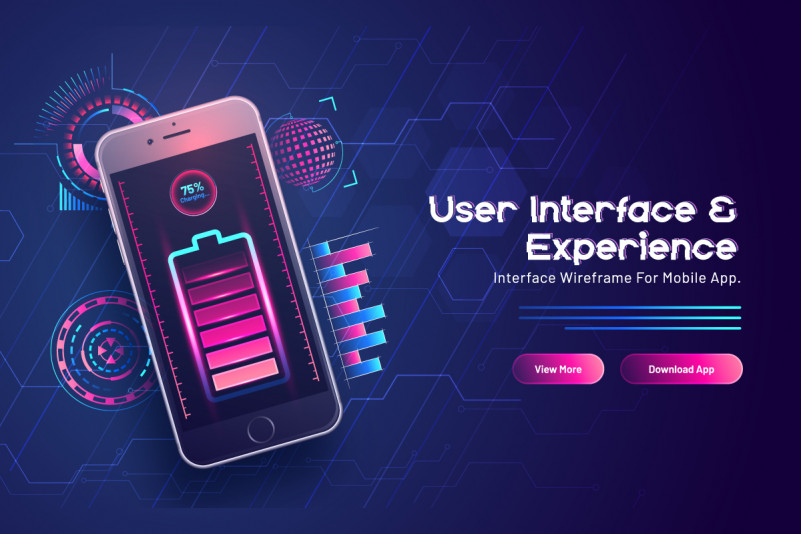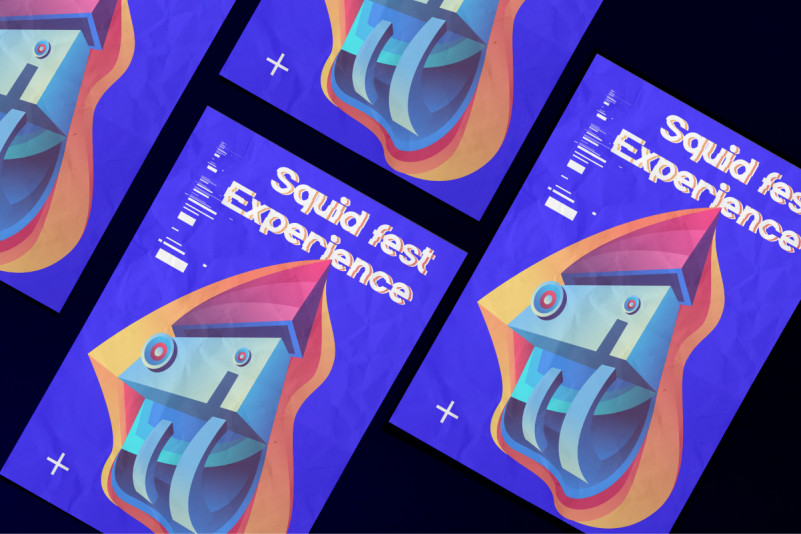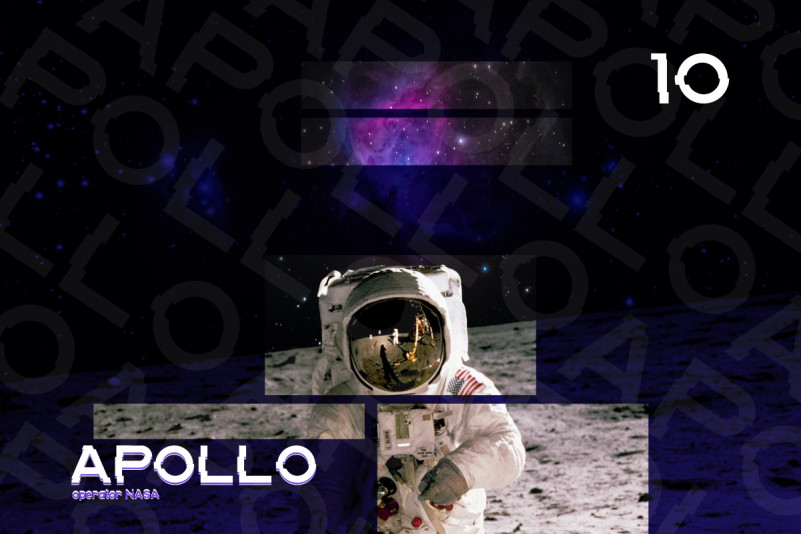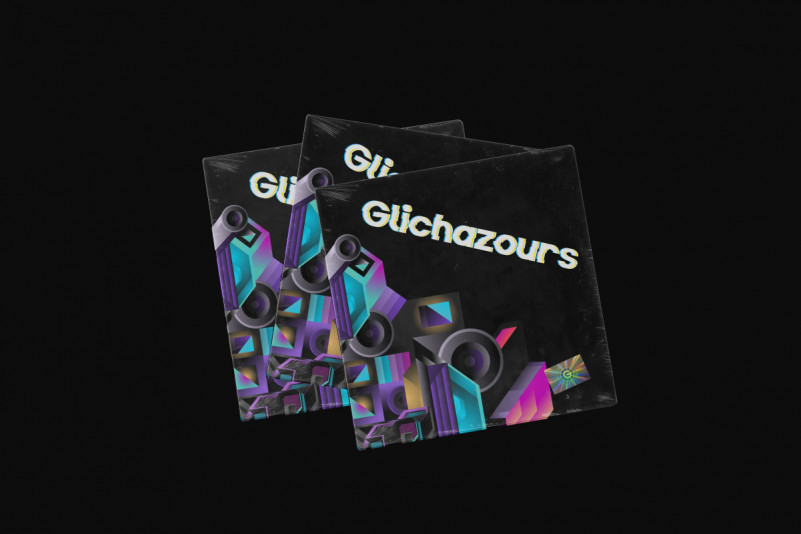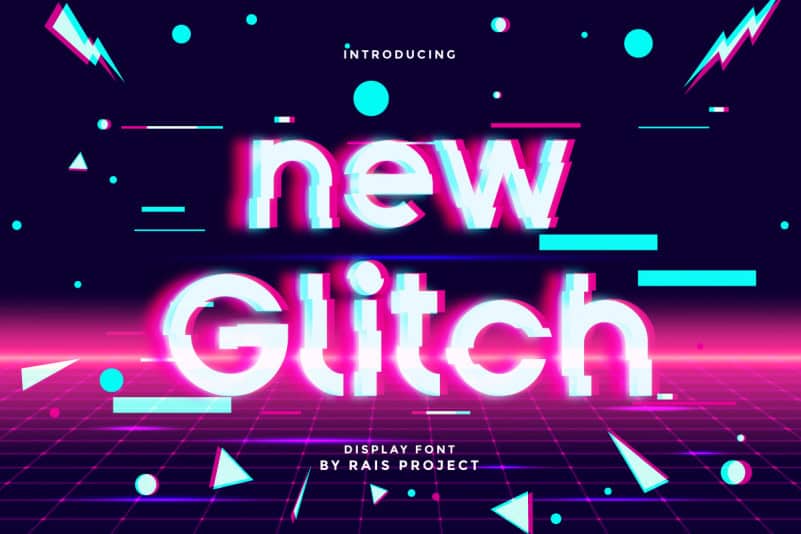
New Glitch Font
New Glitch Display Font
This is a display font inspired from classic poster and flyers designed by RaisProject. The font was handcrafted for any your special projects including : headlines, promotion, events, branding, advertising, magazine, signage, invitation, stationery, social media posts, label, or and any projects that need unique strong style. New Glitch Display Font includes full set of gorgeous uppercase and lowercase letters ,numerals and Multi languages characters. The font also come with artistic ligatures to make it looks really great and unique.